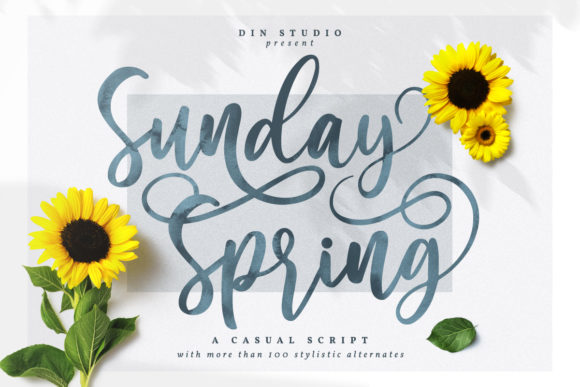
Prepare your designs to blossom with the enchanting Sunday Spring font, a captivating and whimsical script typeface that will add a touch of playful elegance to your creative endeavors. Designed with a brush pen's artistry, Sunday Spring exudes a casual yet lively personality that dances across your projects like a carefree melody.
Indulge in the carefree spirit of Sunday Spring and watch as your designs flourish with its charming imperfections. From eye-catching logos that exude uniqueness to social media graphics that burst with personality, this font weaves its magic, leaving a lasting impression on your audience.
Create branding that tells a story, a story of joy, spontaneity, and heartfelt connections. Sunday Spring's effortless flow and organic curves bring a sense of warmth and authenticity to your designs, making them resonate with your customers on a deeper level. Let your brand blossom with a touch of Sunday Spring.
Unleash your creativity and embark on a DIY adventure with Sunday Spring. Its playful nature makes it the perfect companion for your handmade projects, adding a personal touch that speaks volumes. Whether you're crafting personalized greeting cards, designing unique invitations, or creating heartwarming décor, Sunday Spring transforms your creations into cherished keepsakes.
With Sunday Spring, your designs will bloom with a vibrant charm that captures hearts and sparks imagination. Experience the joy of creating with a font that embraces individuality and celebrates the beauty of life's simple pleasures. Let Sunday Spring be your creative muse and watch as your designs flourish into something truly extraordinary.